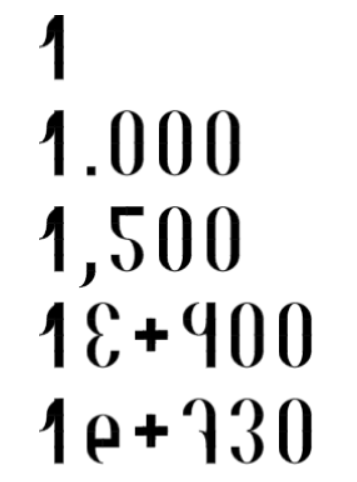
A set of numbers in nassk style. Digit 7 looks like a cane with a small cane, mimicking digit 7 with a diagonal stroke
This fontstruction was also made for the Numbers Competition running currently in FontStruct and as such, it only includes the bare minimum for numbers (Digits, Plus Sign, Comma, Fullstop and Latin letter E)